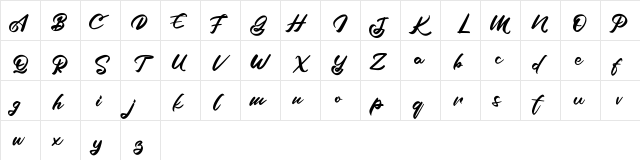
Azala FREE Regular
Design Context for Azala FREE Typeface
Azala FREE is a composed and adaptable typeface that performs quietly and consistently across a wide range of design contexts.